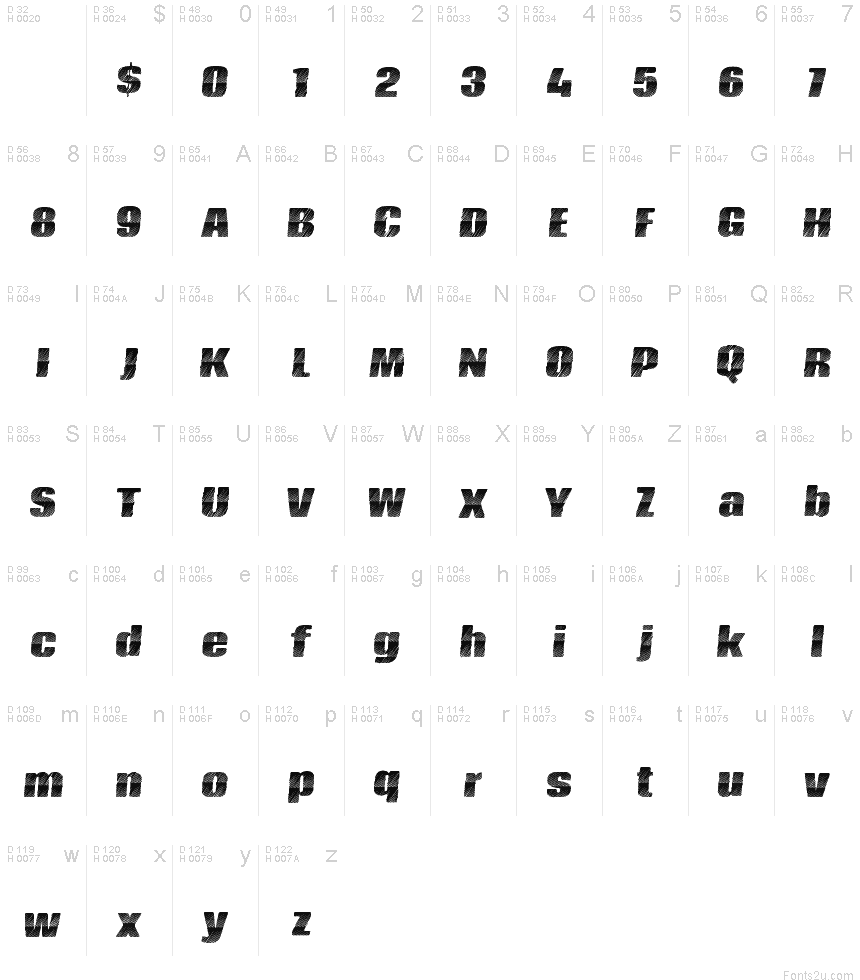
Kings Castle from Xerographer Fonts is a free eroded display font with broad, forward-leaning letters and a dense industrial weight. Fine diagonal scoring covers the strokes, and roughened edges break the surface.
The striped distress can echo scratched metal, speed lines, or worn print, linking the lettering directly with imagery in sports posters, racing graphics, and action-game artwork. It is most convincing on branded merchandise, where the compact mass and directional slant can turn a team name or event title into an integral part of the graphic rather than a neutral label.